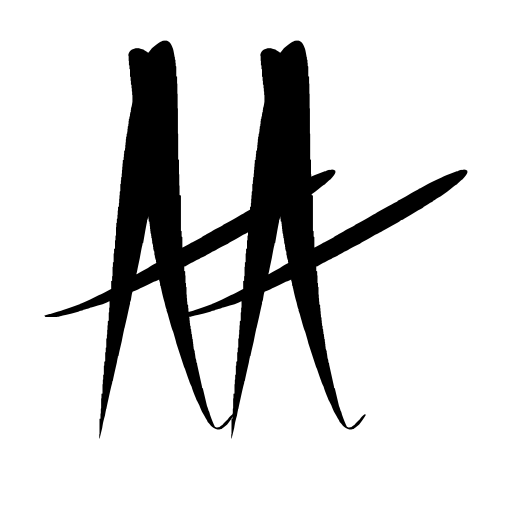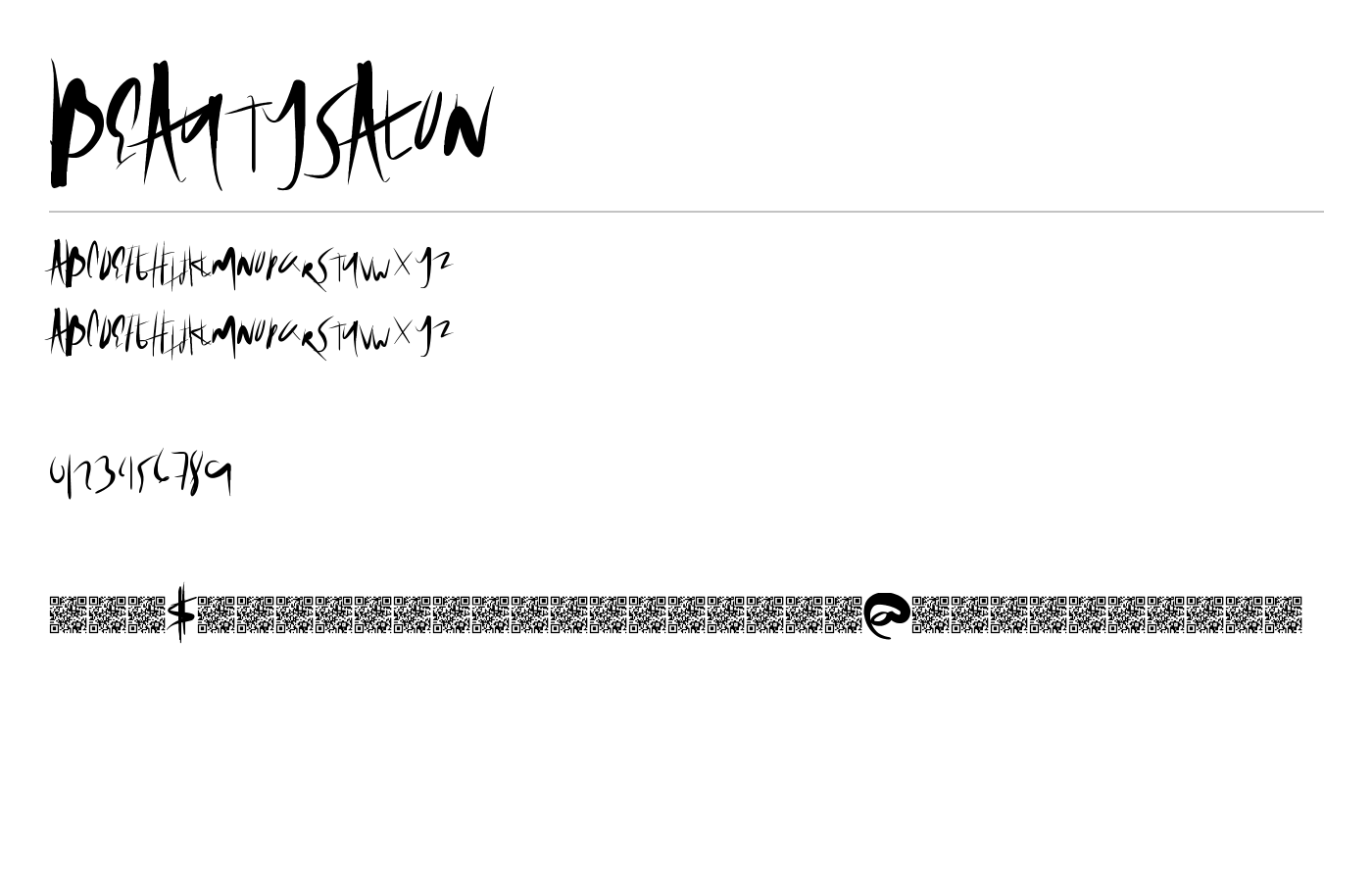
BeautySalon Font is an expressive and edgy handwritten typeface with sharp, irregular strokes and a narrow, condensed shape that gives it a dynamic and artistic feel. Its tall, slender letterforms with varied line thicknesses create an energetic and modern vibe, making it perfect for creative branding, fashion, and beauty-related designs that want to stand out with a bold, personal touch. This font works best in logos, headlines, and posters where a unique, hand-crafted style is desired.
BeautySalon Font
About BeautySalon Font